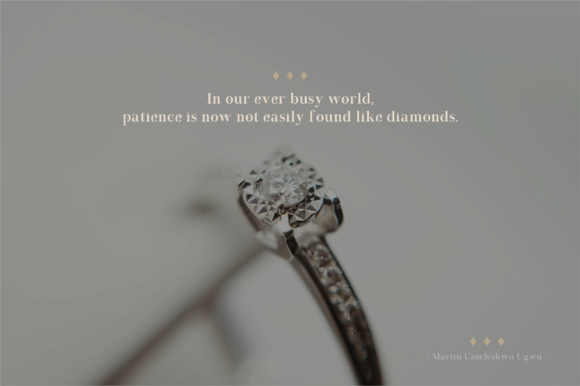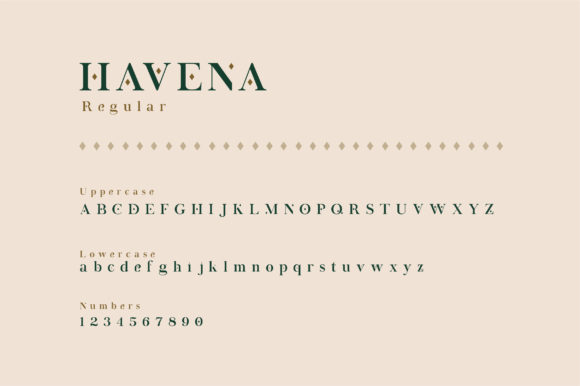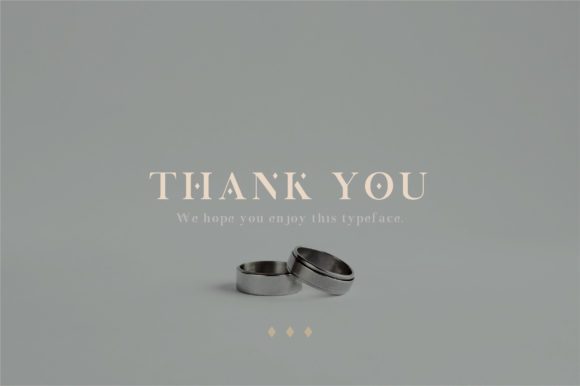
Introduction to Havena Font
Enter the Havena Font, a high-quality, versatile serif font that’s about to become your new go-to design resource. With its clean lines and elegant feel, Havena Font is perfect for a wide range of creative projects, from website headers to book covers, and everything in between.
Key Features of Havena Font
- High-quality typography with a modern, elegant design
- Unique characteristics include a unique blend of modern and vintage elements
- Perfect for use in various creative projects, from logos to posters and more
Honest Review: Havena Font
As a designer, I’m always on the lookout for high-quality design resources that can elevate my creative projects. Recently, I came across the Havena Font, and I’m excited to share my honest review.
- ✨ Unique and elegant design aesthetic that can add a touch of sophistication to any project.
- ✨ Wide range of weights and styles to choose from, making it a versatile font for various design applications.
- ⚠️ Some users may find the font a bit too ornate or busy for certain design projects.
Overall, I’m impressed with the Havena Font’s high-quality design and versatility. While it may not be the best fit for every project, it’s definitely a valuable addition to any designer’s toolkit. Whether you’re working on a creative project or just need a reliable font for your next design, the Havena Font is definitely worth checking out.
The Havena Font is suitable for a wide range of creative projects, including logos, business cards, social media graphics, presentations, and documents. Its high-quality design and transparent background make it an excellent choice for designers and non-designers alike.
To get the most out of the Havena Font, experiment with different font sizes, colors, and combinations. You can also pair the Havena Font with other fonts to create a unique and eye-catching design. Don’t be afraid to try out new and creative ways to use this versatile font.